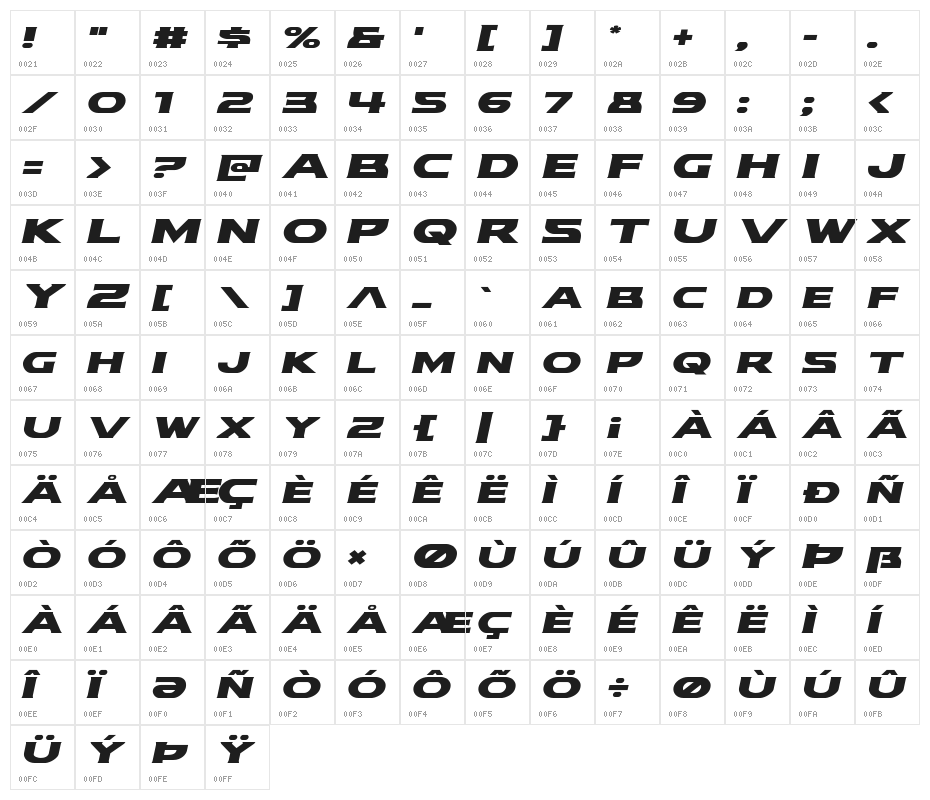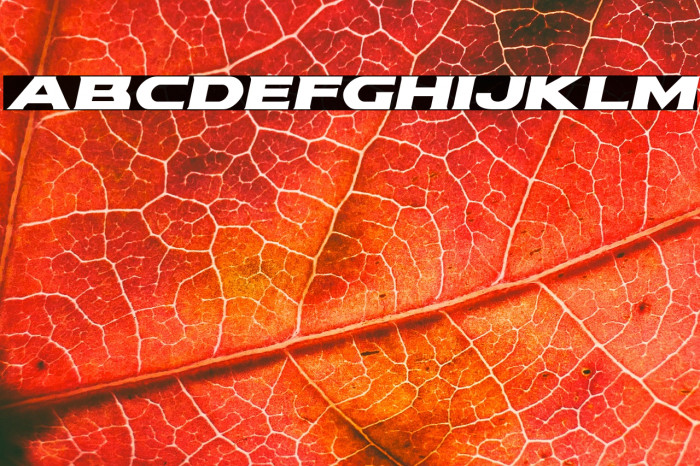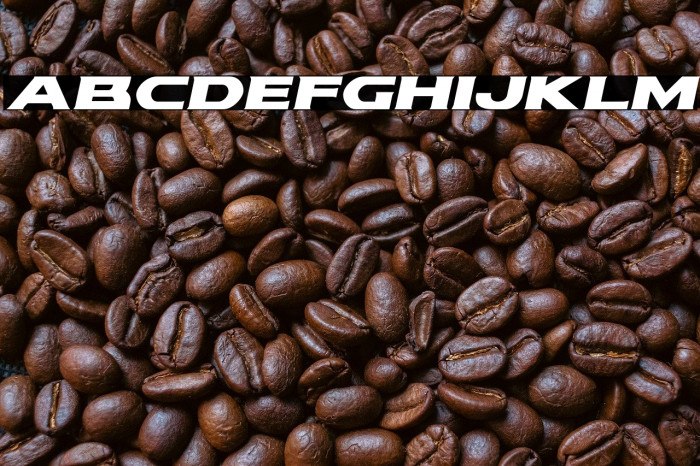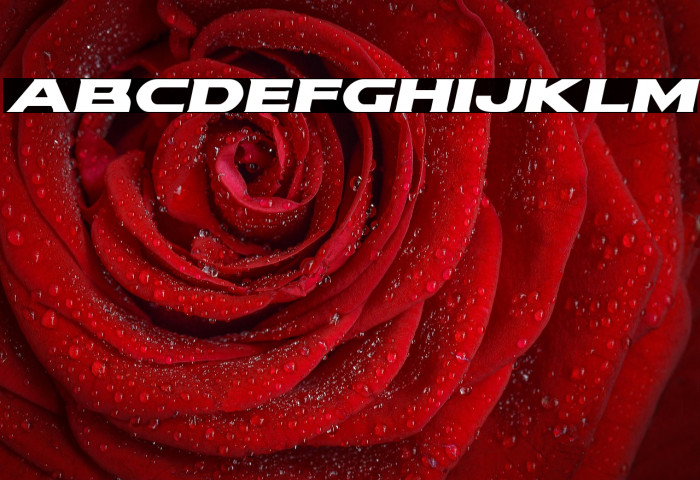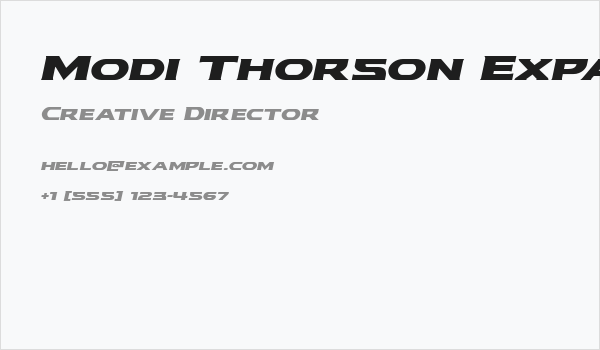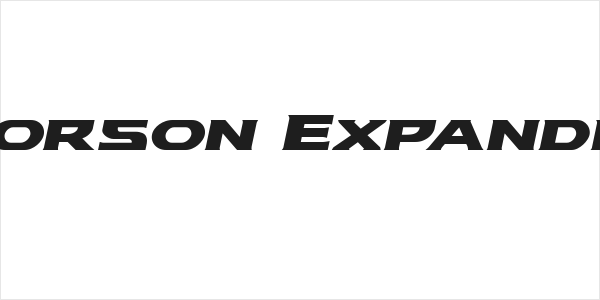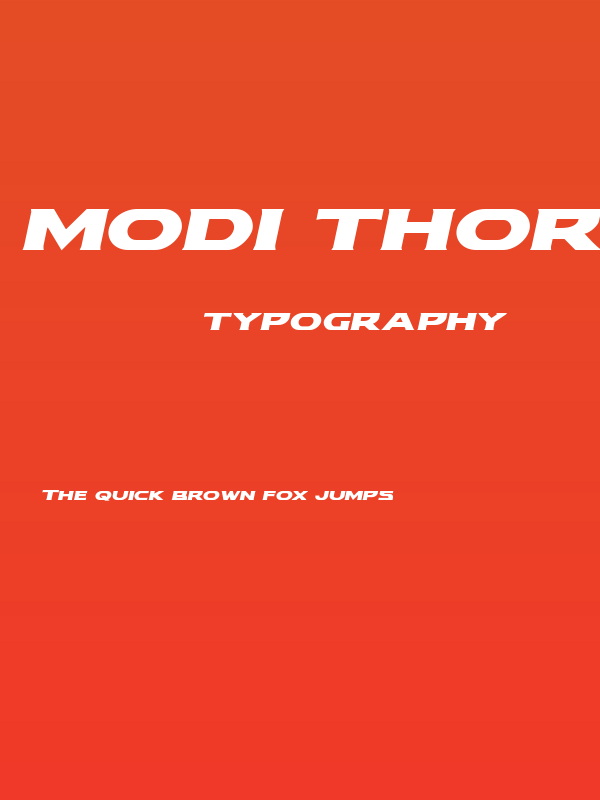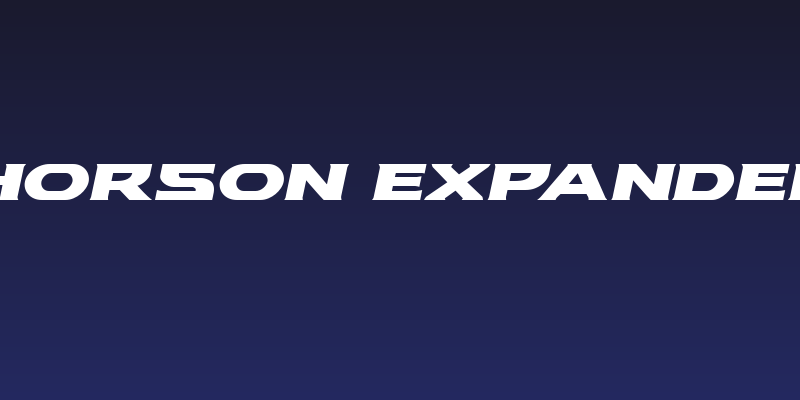
Modi Thorson Expanded Italic Font
Modi Thorson Expanded Italic Description
This font features a bold, italicized style with an expanded width, giving it a dynamic and energetic appearance. The characters are sharply defined with angular cuts, creating a futuristic and aggressive look. The uppercase and lowercase letters maintain a consistent slant, enhancing the italic effect. Numbers and special characters are designed to match the boldness and angularity of the alphabet, ensuring uniformity across all glyphs. The font's expanded width provides a sense of space and openness, making it suitable for impactful headlines and titles.